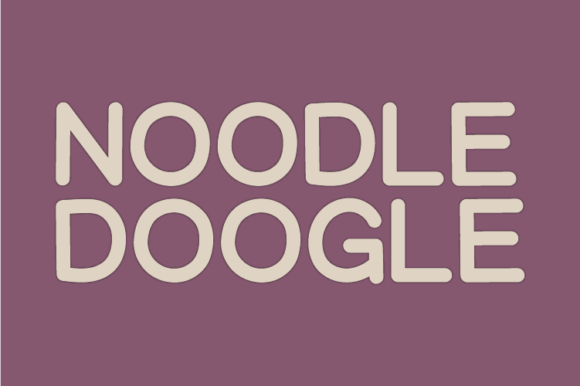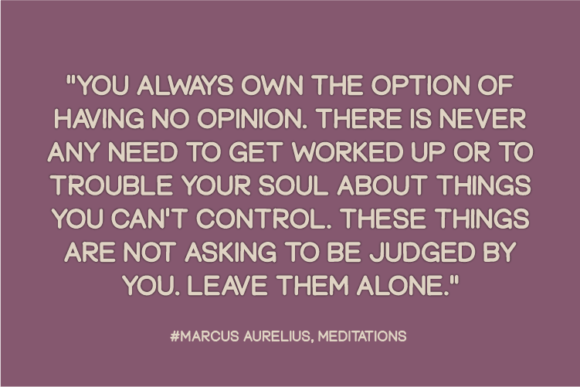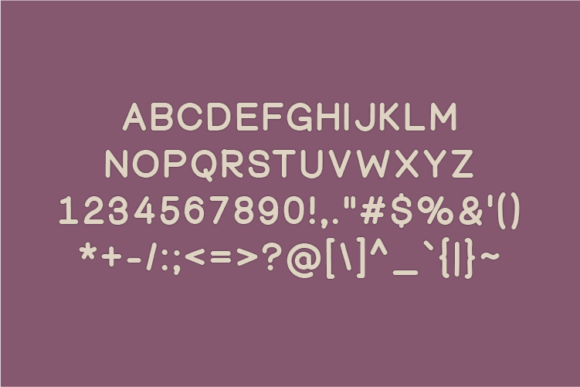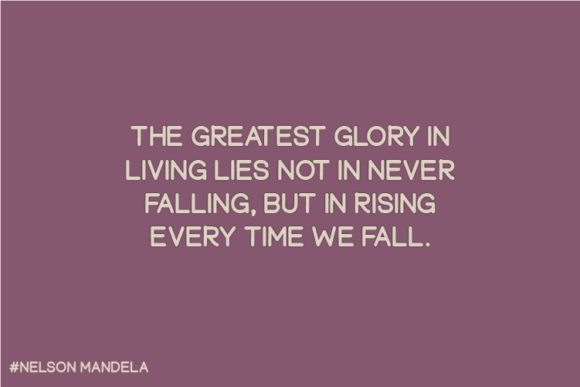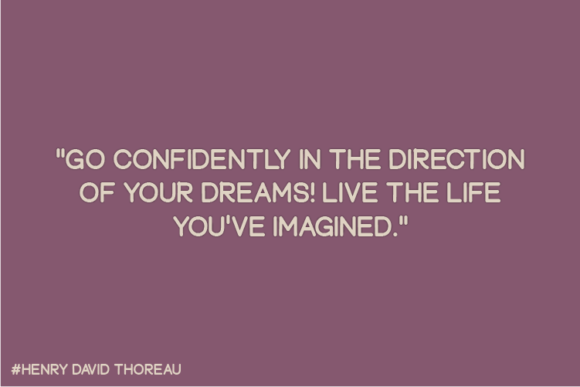
About Noodle Doogle Font
Noodle Doogle is a quirky and playful sans serif font that brings a dose of fun to every design. With its bold personality and friendly appearance, itβs the ideal font for creatives who want to inject a sense of joy, energy, and whimsy into their work. Whether youβre designing for a childrenβs project, a crafty hobby, or a small business, Noodle Doogle has the charm to make your ideas stand out.
Unlike traditional serif or calligraphic styles, Noodle Doogle keeps things simple and modern. Its rounded edges and hand-crafted look give it a relaxed and approachable feel. Perfect for digital and print applications alike, it adapts to many styles while maintaining its distinct character.
What Makes Noodle Doogle Special?
Hereβs why Noodle Doogle will quickly become one of your most-used fonts:
Quirky Personality
Its playful letterforms are designed to add movement and fun to your text, giving your designs a friendly, casual touch.
Sans Serif Simplicity
As a sans serif font, Noodle Doogle is clean and readableβideal for projects that require clarity while still standing out.
All-Ages Appeal
From birthday cards and classroom posters to product packaging and Instagram posts, this font works beautifully for kids and adults alike.
Versatile Use Cases
You can use Noodle Doogle for headlines, quotes, merchandise, stickers, branding elements, social media graphics, and more.
Great for Crafts and Creative Projects
Noodle Doogle is especially well-loved in the crafting and handmade space. Its hand-drawn look makes it feel personal and authentic. Whether youβre a Cricut user cutting vinyl for a DIY sign, or a digital designer making kidsβ illustrations, this font is a perfect fit.
It works perfectly for:
Greeting cards
T-shirts and tote bags
Event invitations
Coloring books and childrenβs stories
Etsy shop branding
Scrapbooking
YouTube thumbnails
Classroom decor
Wherever you need bold, clear, and fun text, Noodle Doogle delivers with flair.
Let Your Designs Have Fun
If you’re looking for a font thatβs bursting with personality but still easy to use and visually clean, Noodle Doogle is the one. Its quirky sans serif charm turns any ordinary message into something lively and memorable. Bring a smile to your audience with every letter.